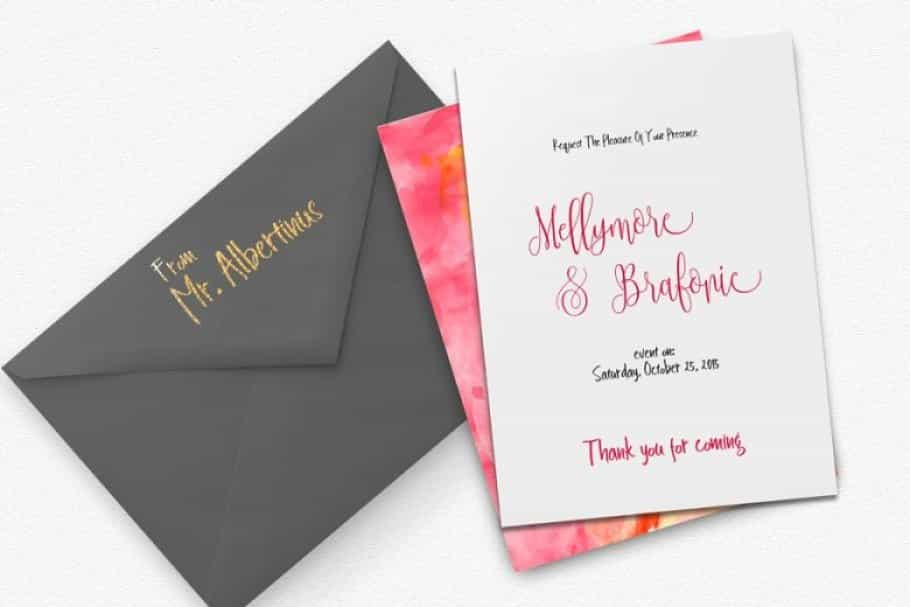
Braveheart is Modern Calligraphy. This font was made by the hand in conclusion, and it has a modern and unique forms of calligraphy, the writing style is very natural. The Programs you can using are a Adobe Photo Shop, Adobe Illustrator, Adobe Indesign, Corel Draw and Microsoft Office; Can be used for various purposes.such as headings, logos, wedding invitation, t-shirt, letterhead, signage, lable, news, posters, badges etc. To enable the OpenType Stylistic alternates, you require a program that supports OpenType features such as Adobe Illustrator CS, Adobe Indesign & CorelDraw X6-X7.